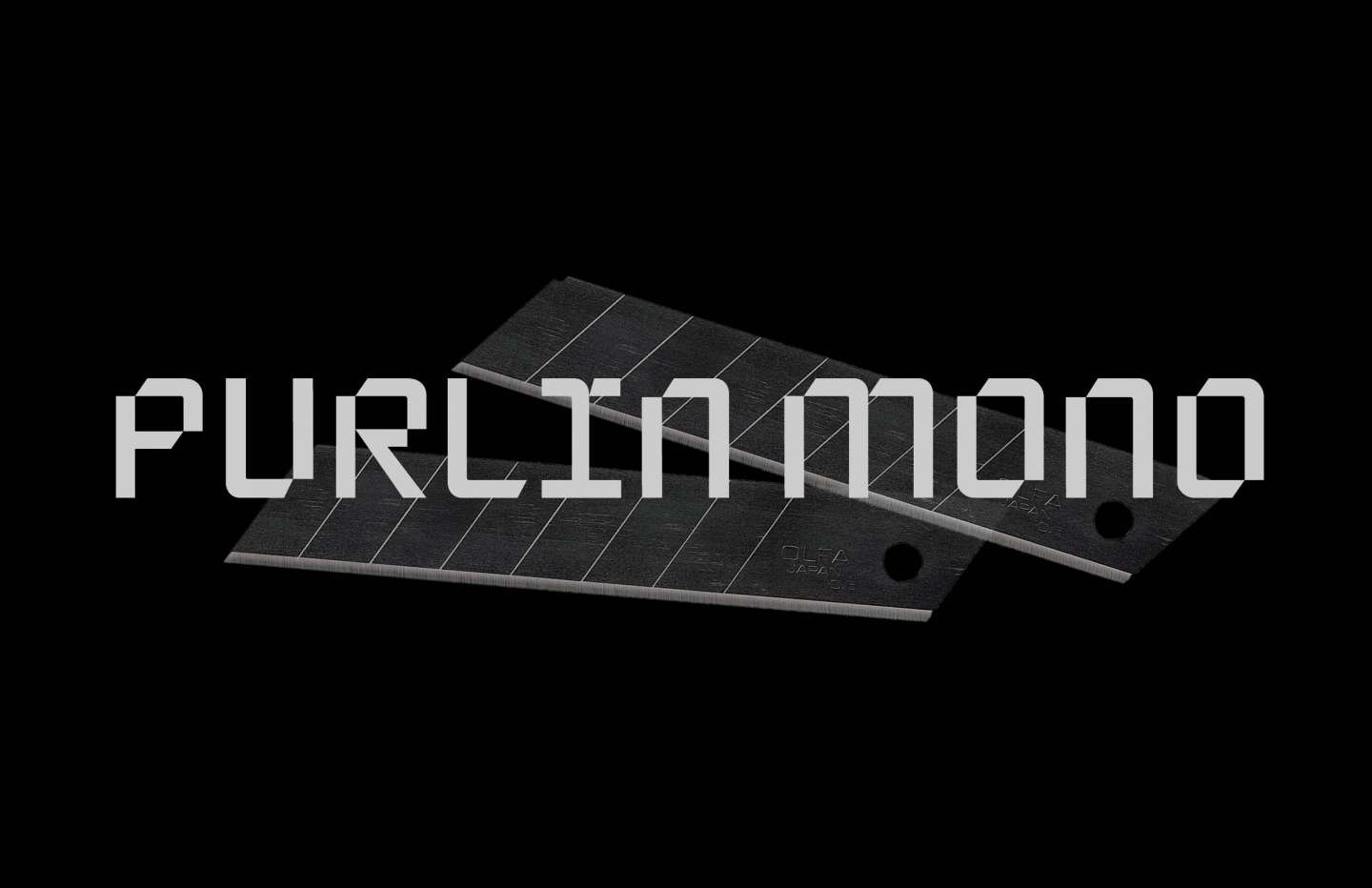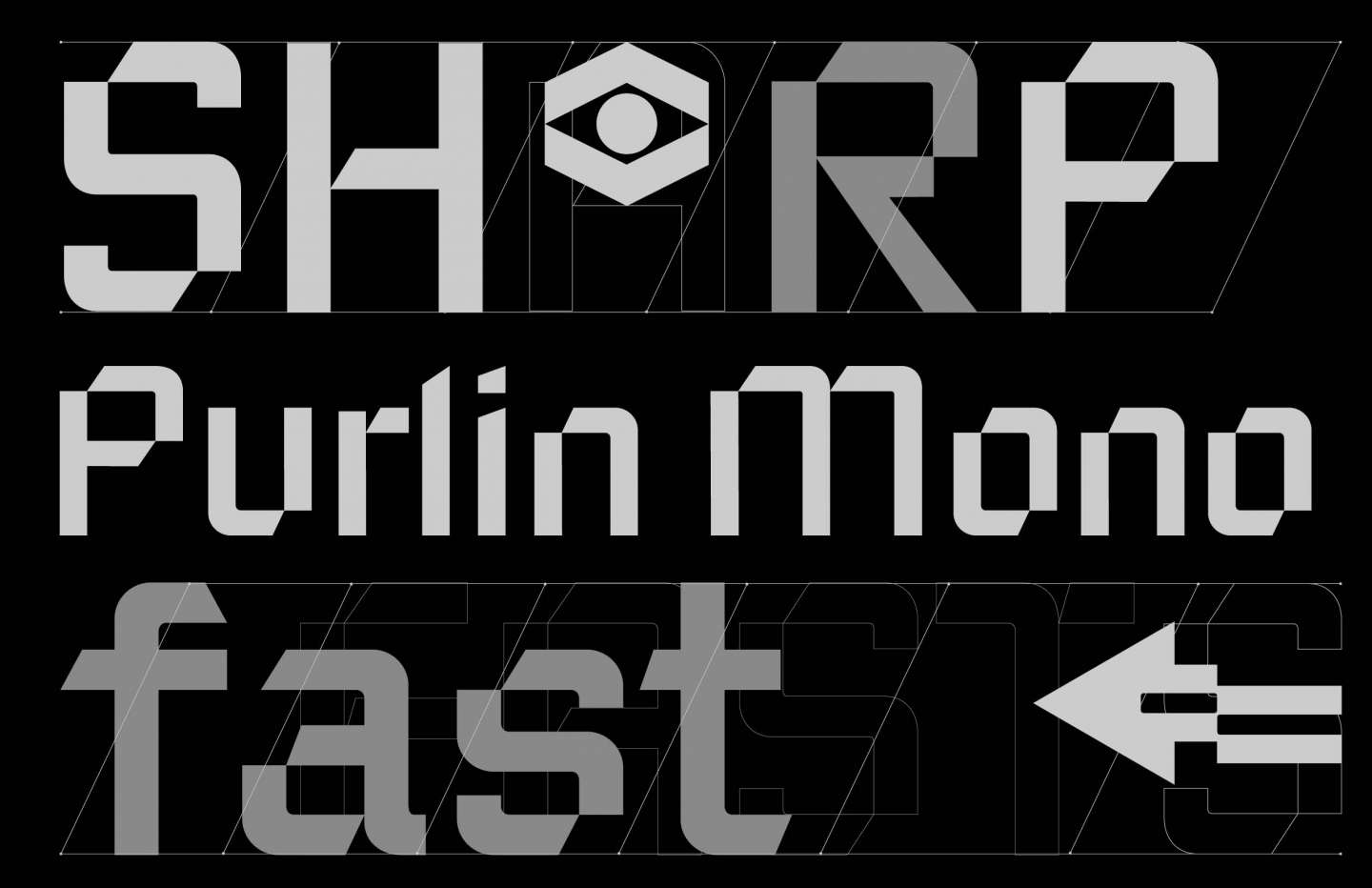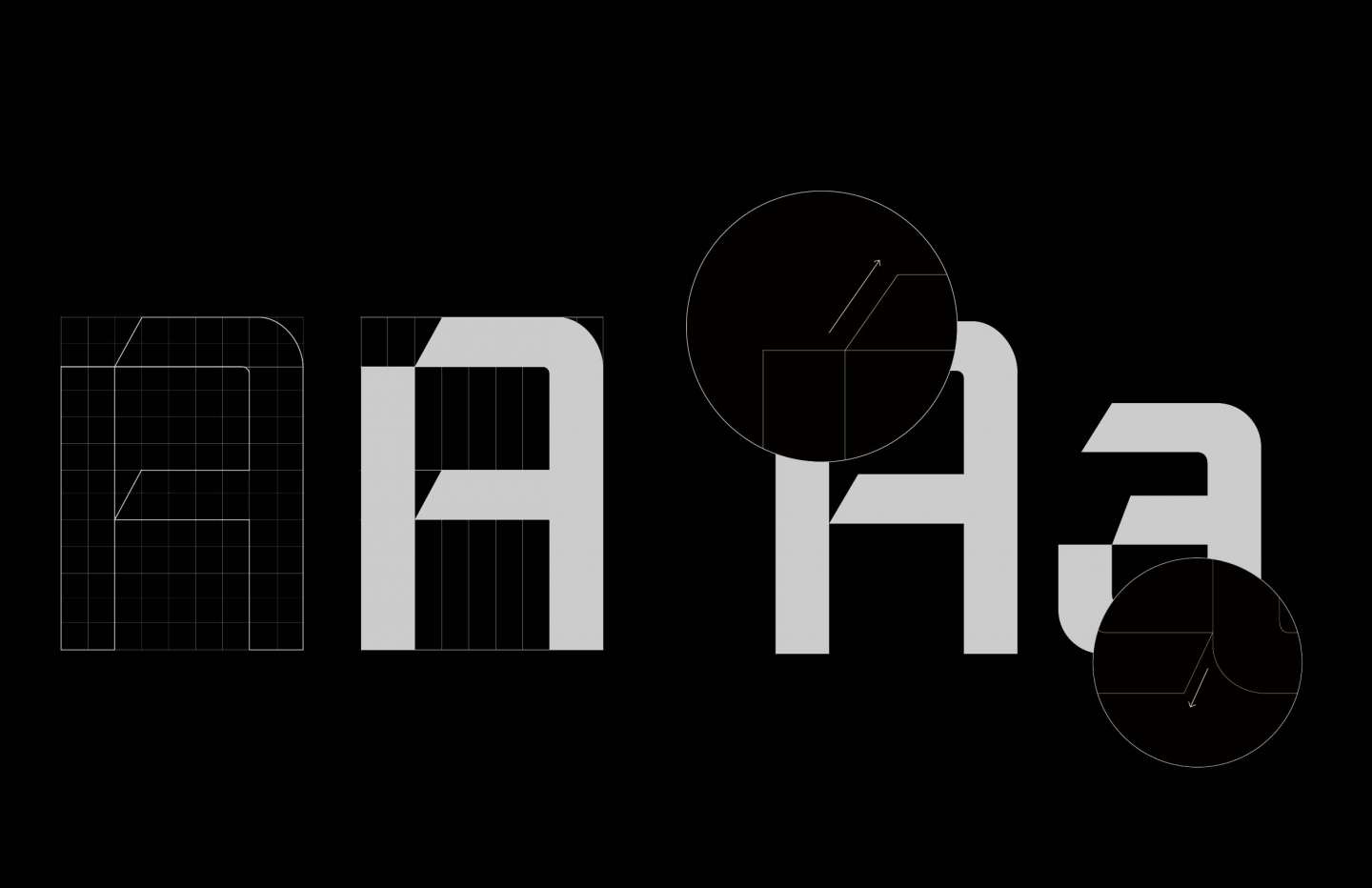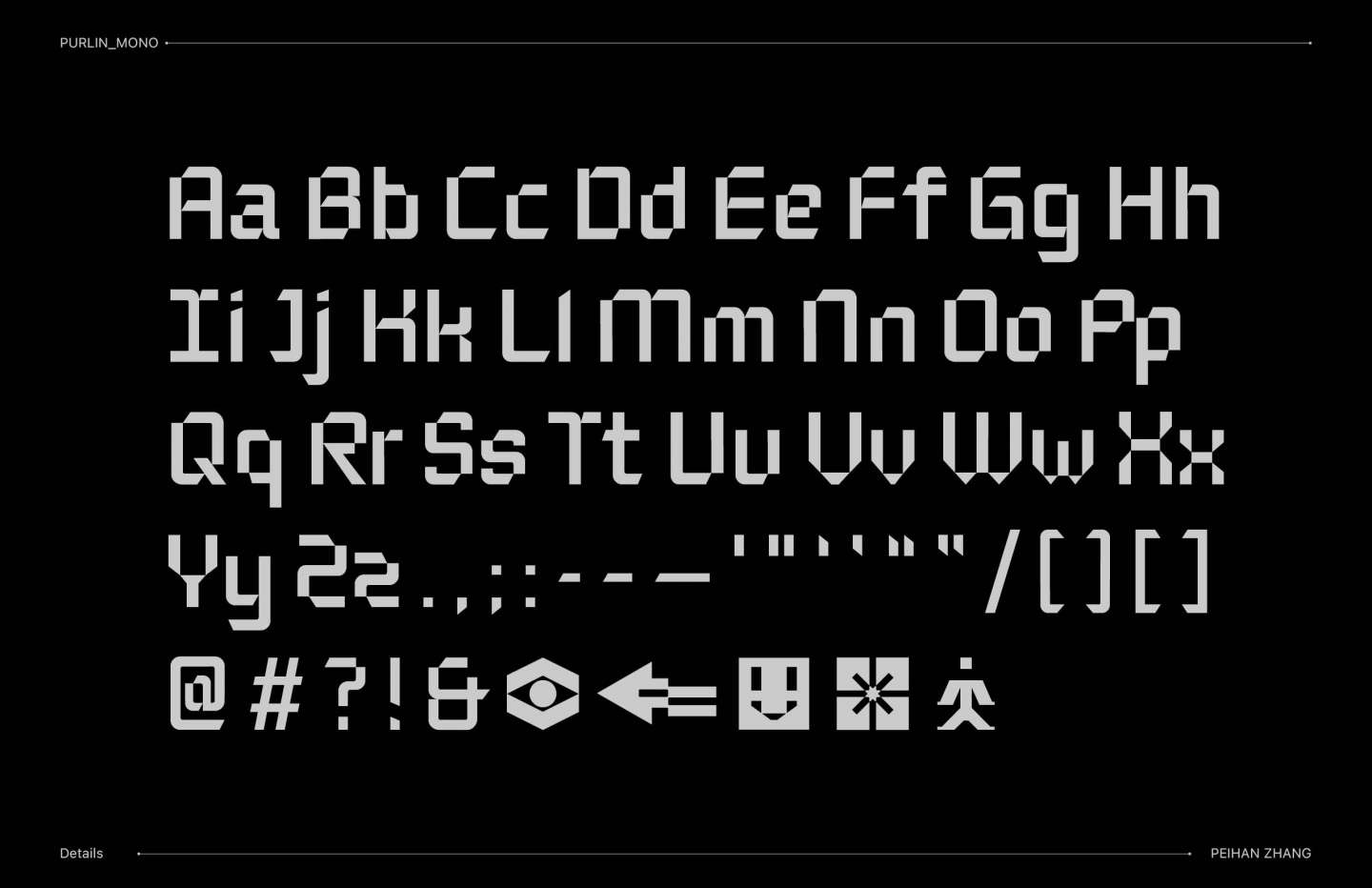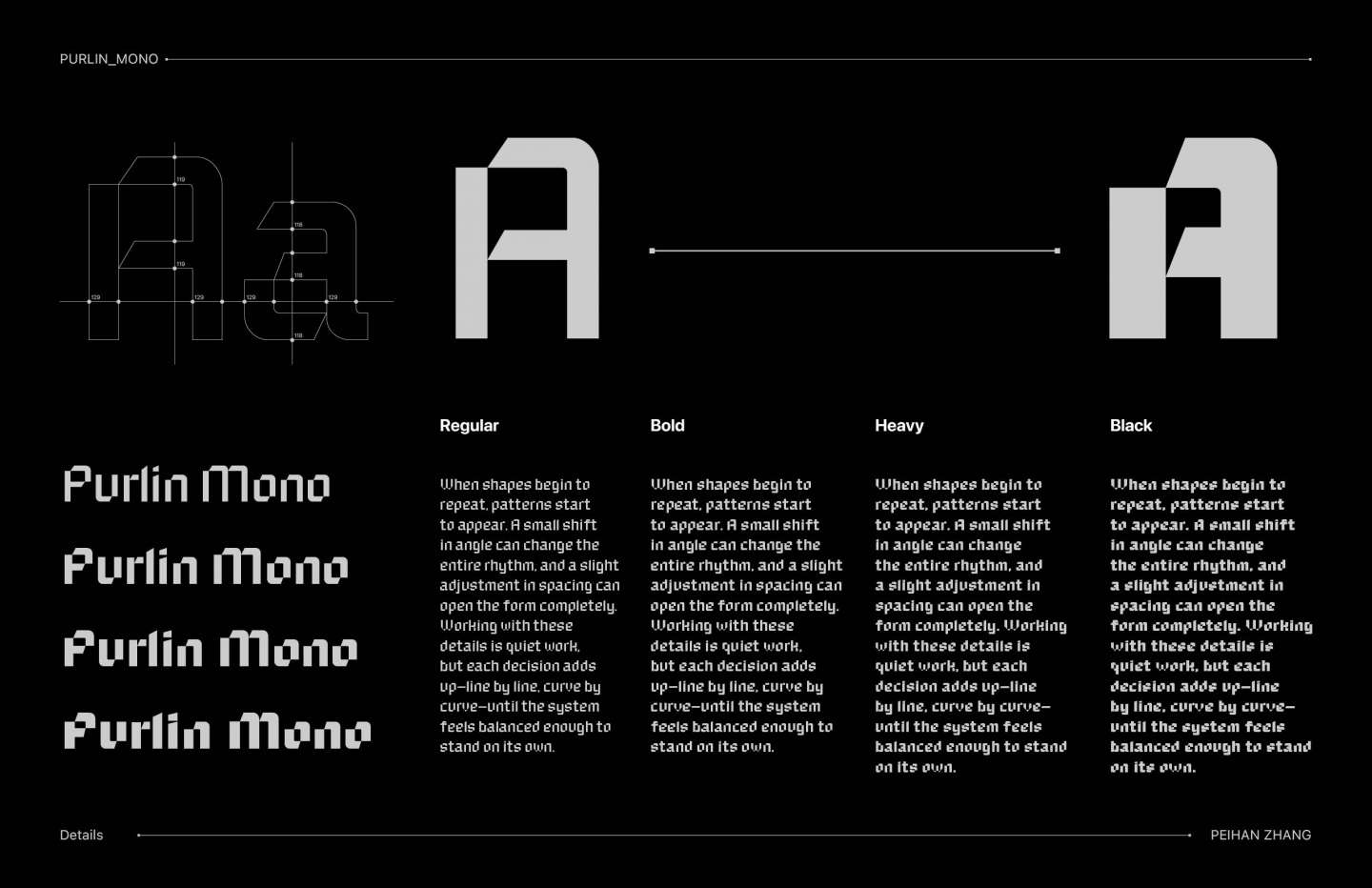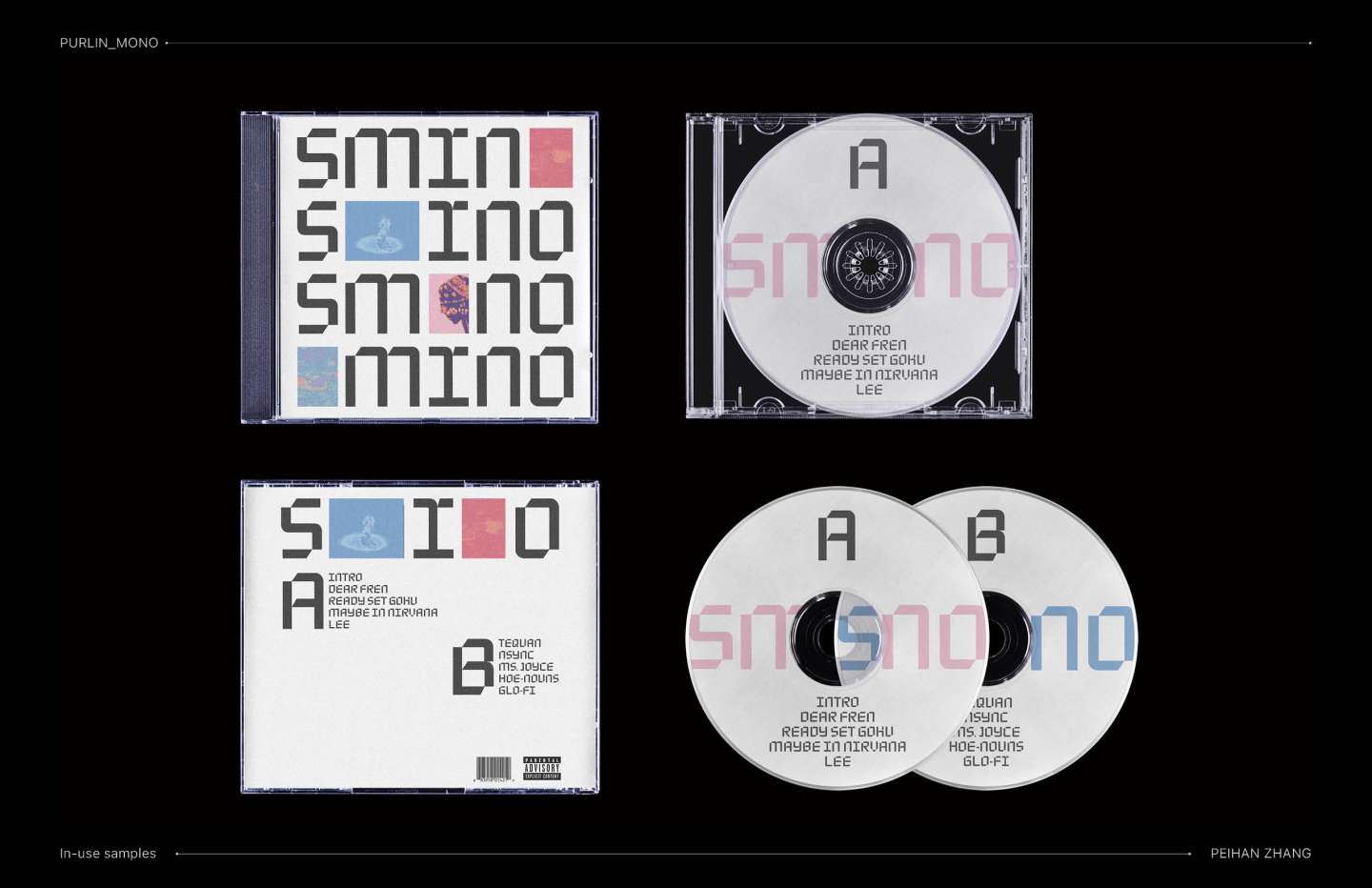
Purlin Mono is a modular display typeface inspired by the angled geometry of a utility knife blade. While the forms come from the blade, the name Purlin reflects the typeface as a structured system built on repetition and linear logic. It’s designed for flexible use across posters, music packaging, and identity work, balancing structure with a subtle sense of movement.